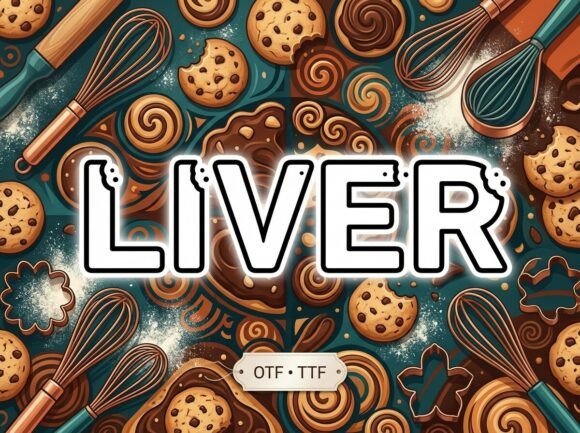
Introduction to Liver Font
Do you ever find yourself stuck in a creative rut, searching for the perfect font to elevate your next project? I know I do. It’s that moment when you’re staring at a blank canvas, and all you can think about is finding the perfect design resource to bring your vision to life. That’s exactly what happened to me when I stumbled upon the Liver Font. Its playful, rounded sans-serif letterforms instantly captured my attention, and I knew I had to share it with fellow designers.
As a go-to design font, Liver Font is more than just a pretty face. Its unique “bite marks” and crumbling edges give it a one-of-a-kind look that’s perfect for creative projects, from free downloads to high-quality branding materials. Whether you’re working on a culinary blog or a social media campaign, Liver Font is the perfect choice to add some personality to your design. And the best part? It’s available for download with a transparent background, making it easy to incorporate into any design project.
Key Features of Liver Font
- High-quality vector design, ideal for use in various creative projects, including digital art and graphic design.
- Unique, hand-drawn design, offering a distinctive touch to any creative project.
Honest Review: Liver Font
I recently stumbled upon the Liver Font, a free download that caught my attention with its unique design style. As a designer, I appreciate discovering new resources that can elevate my creative projects. The Liver Font is a great addition to any designer’s toolbox, offering a fresh and modern look.
- Unique design style: The Liver Font’s distinctive aesthetic sets it apart from other fonts, making it a great choice for designers looking to add some personality to their projects.
- High-quality design: The font is well-designed, with clean lines and a clear structure that makes it easy to read.
- Transparent background: The font’s transparent background makes it easy to layer over images or other design elements.
While the Liver Font is a great resource, there are a few limitations to be aware of:
- Limited character set: The font’s character set is relatively limited, which may not be suitable for projects that require a wide range of characters.
- Not suitable for small text: Due to its unique design style, the Liver Font may not be the best choice for small text or titles.
Overall, I’m impressed with the Liver Font’s unique design style and high-quality design. While it may have some limitations, it’s a great addition to any designer’s toolkit, and I’d definitely recommend it for creative projects that require a modern and fresh look.
Tips for Getting the Most Out of Liver Font
Experiment with different font sizes and colors to create a visually appealing design. You can also use Liver Font in combination with other design elements to add depth and creativity to your project.
The Liver Font is ideal for use in various creative projects, including logos, brochures, posters, and infographics. Its high-quality, transparent background design makes it a versatile resource for designers and non-designers alike.